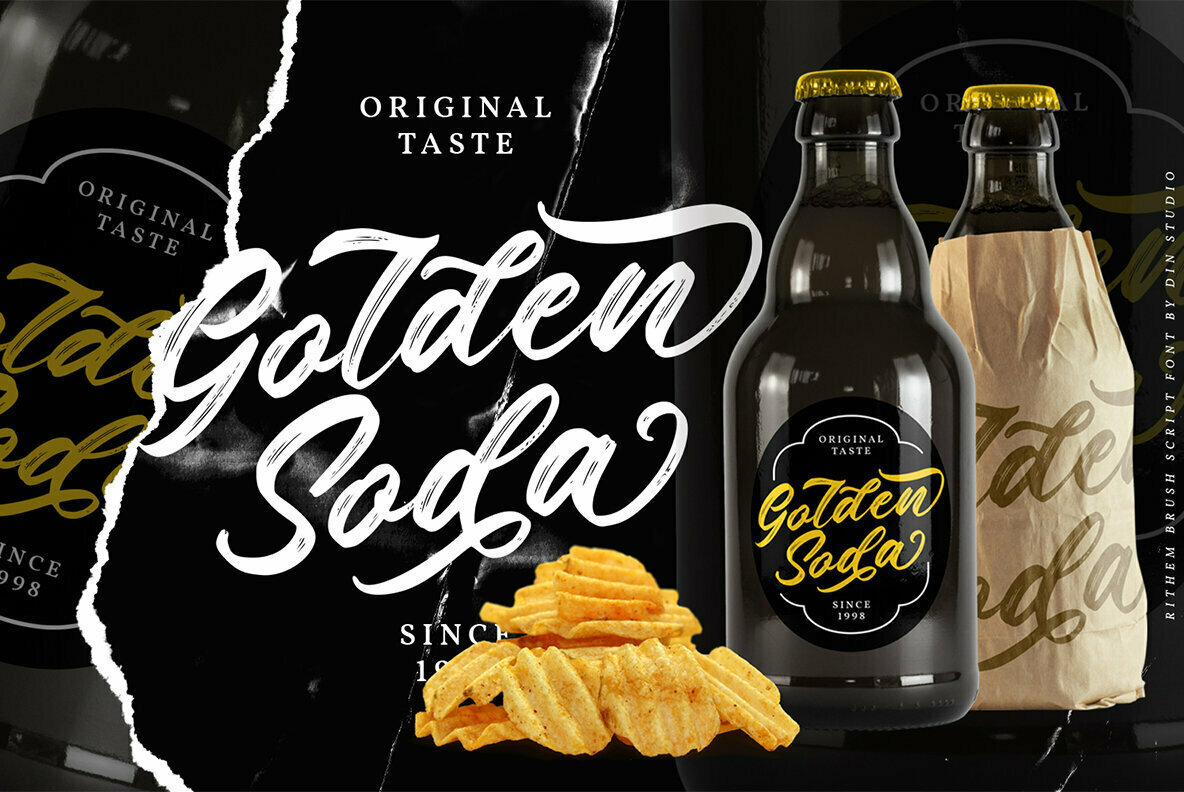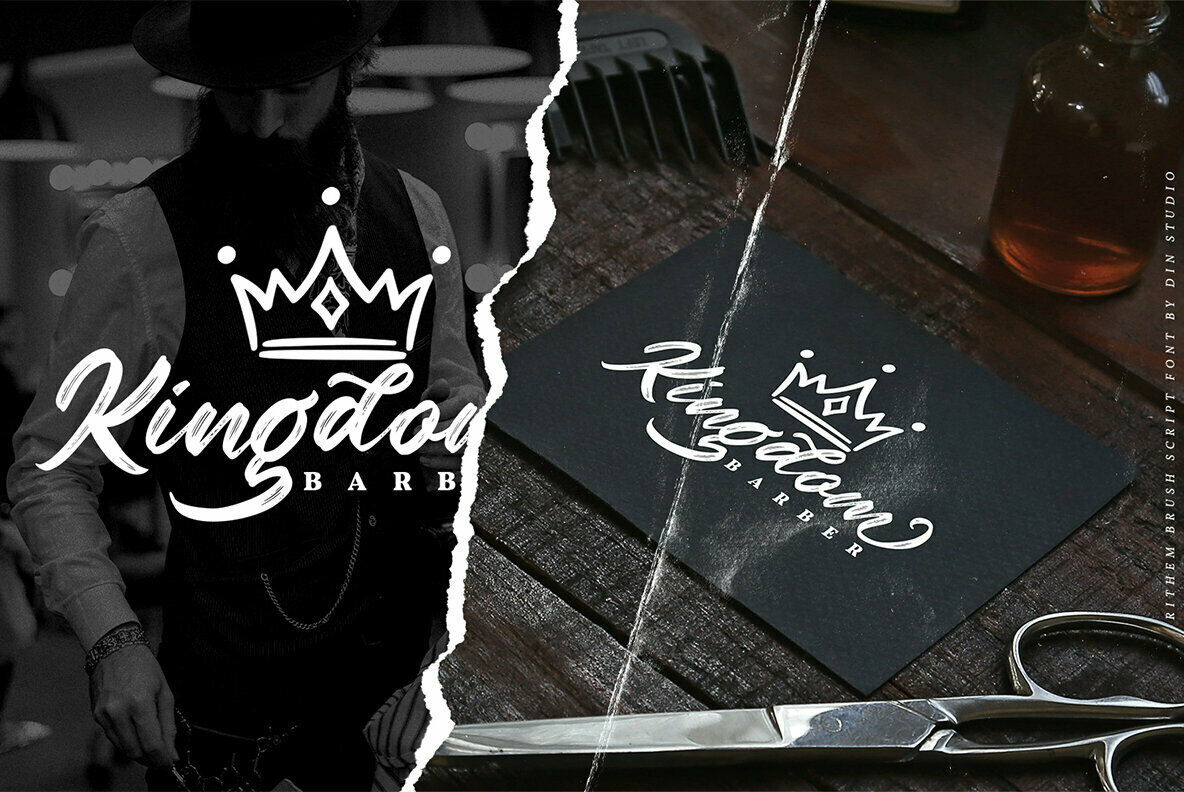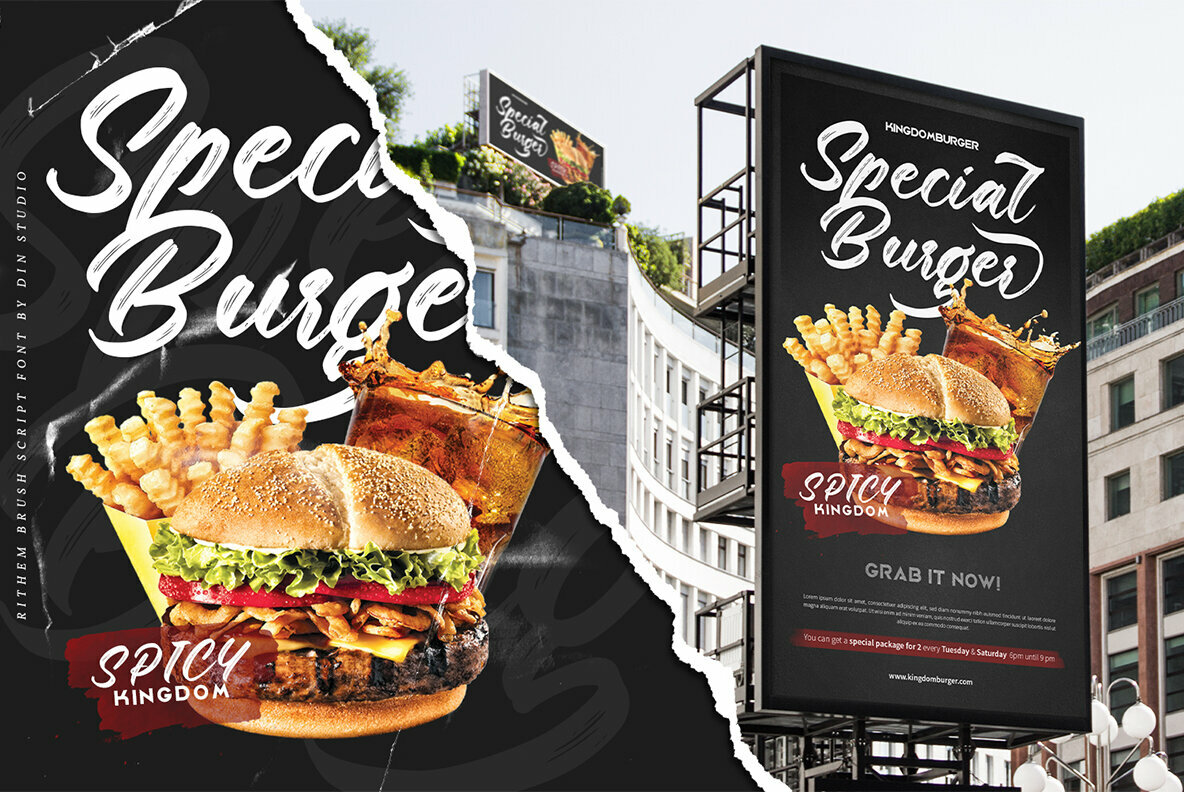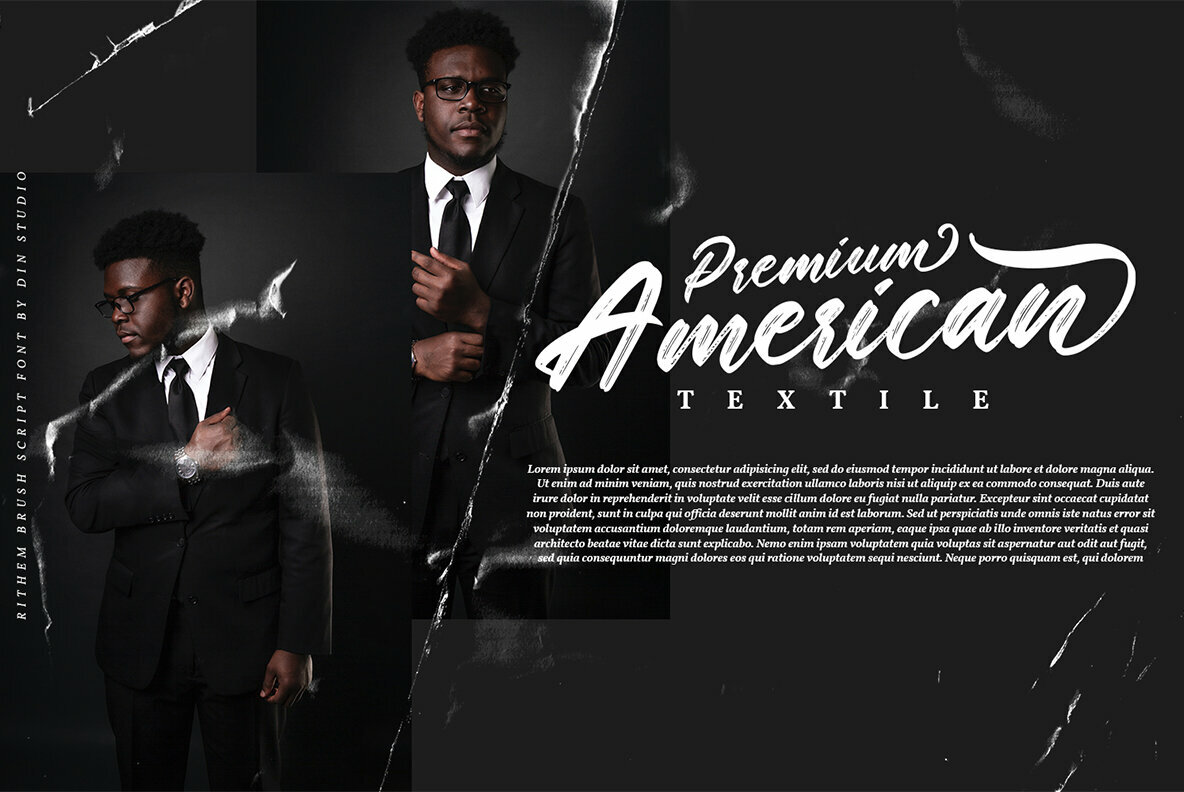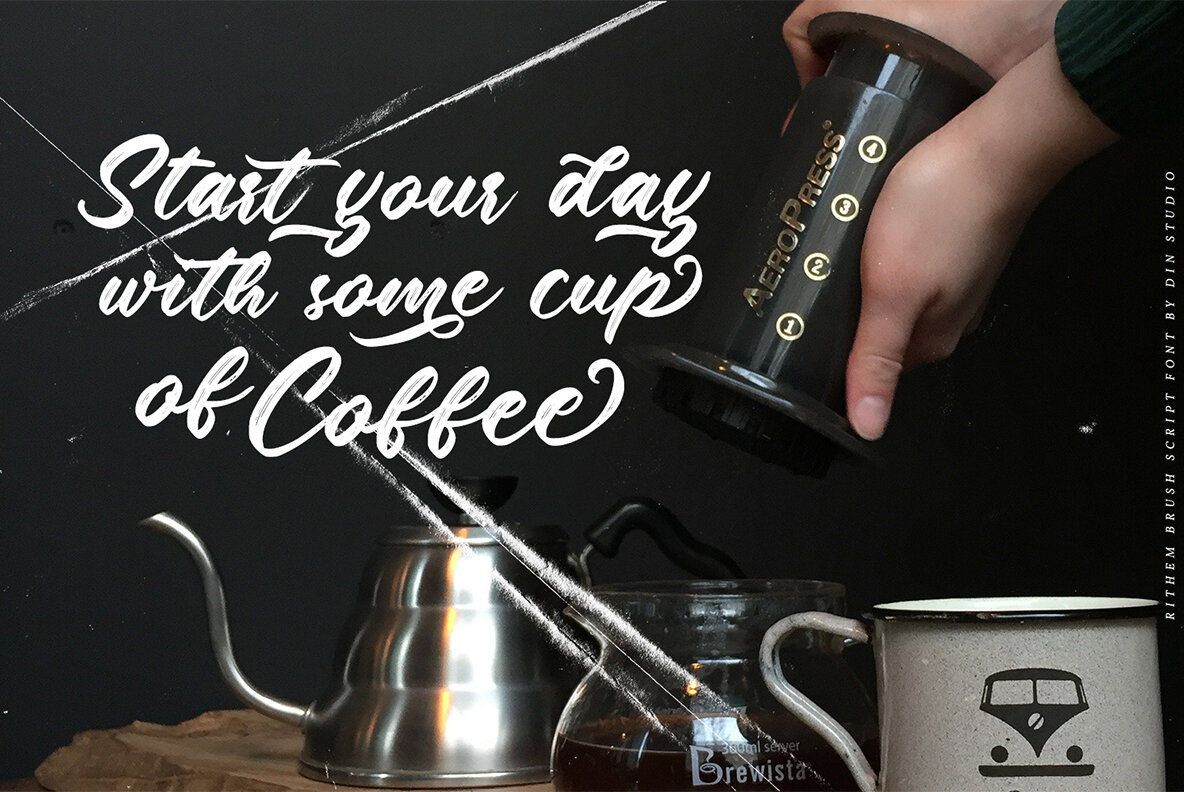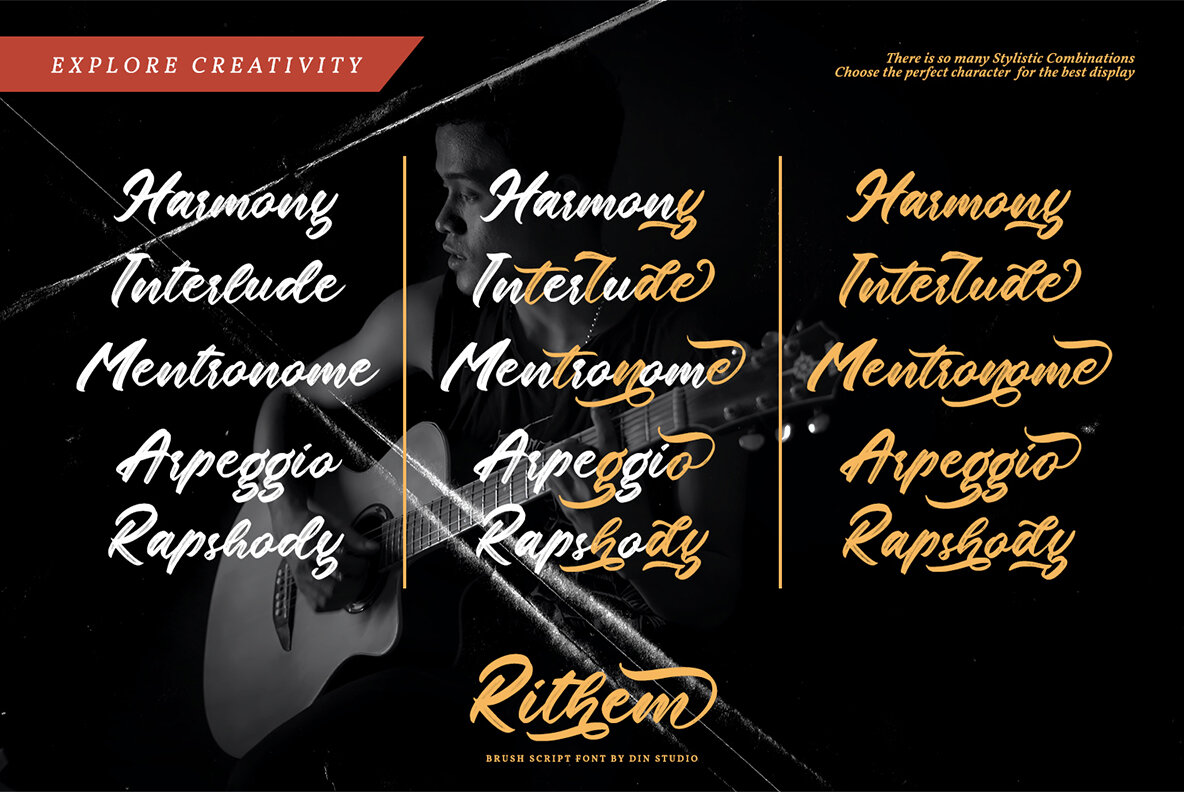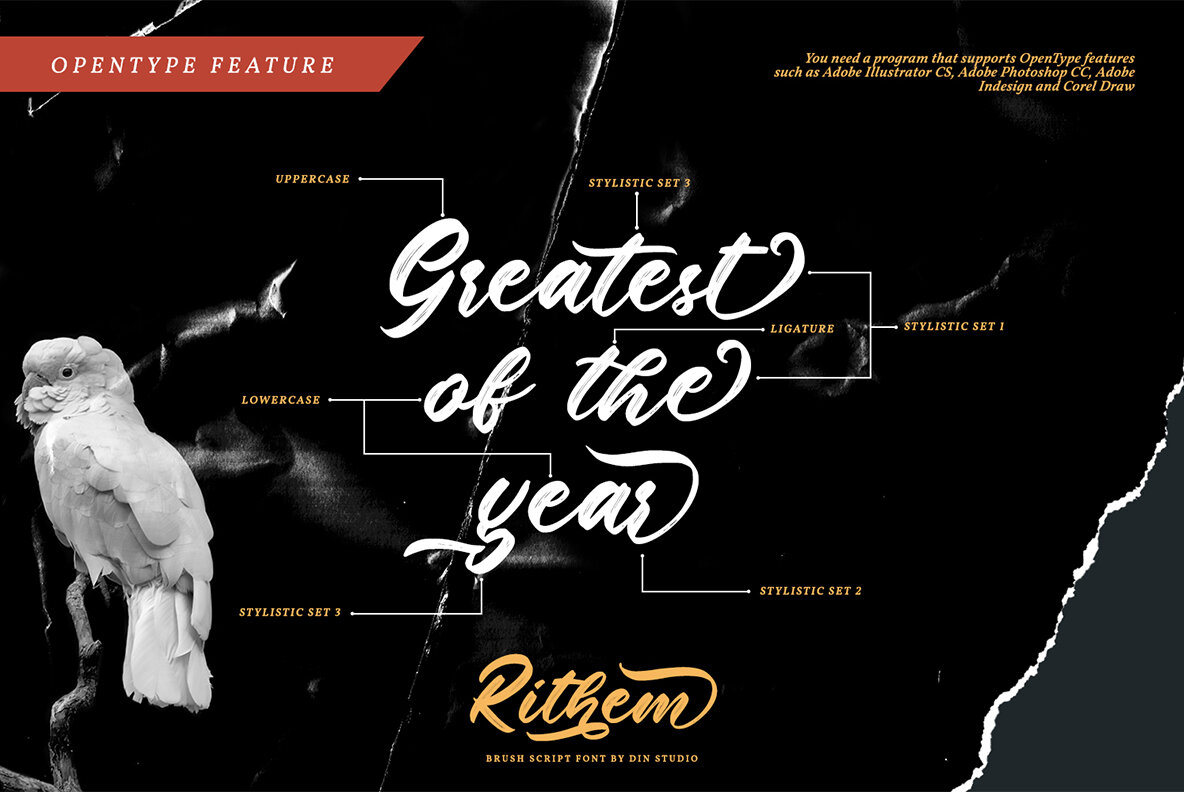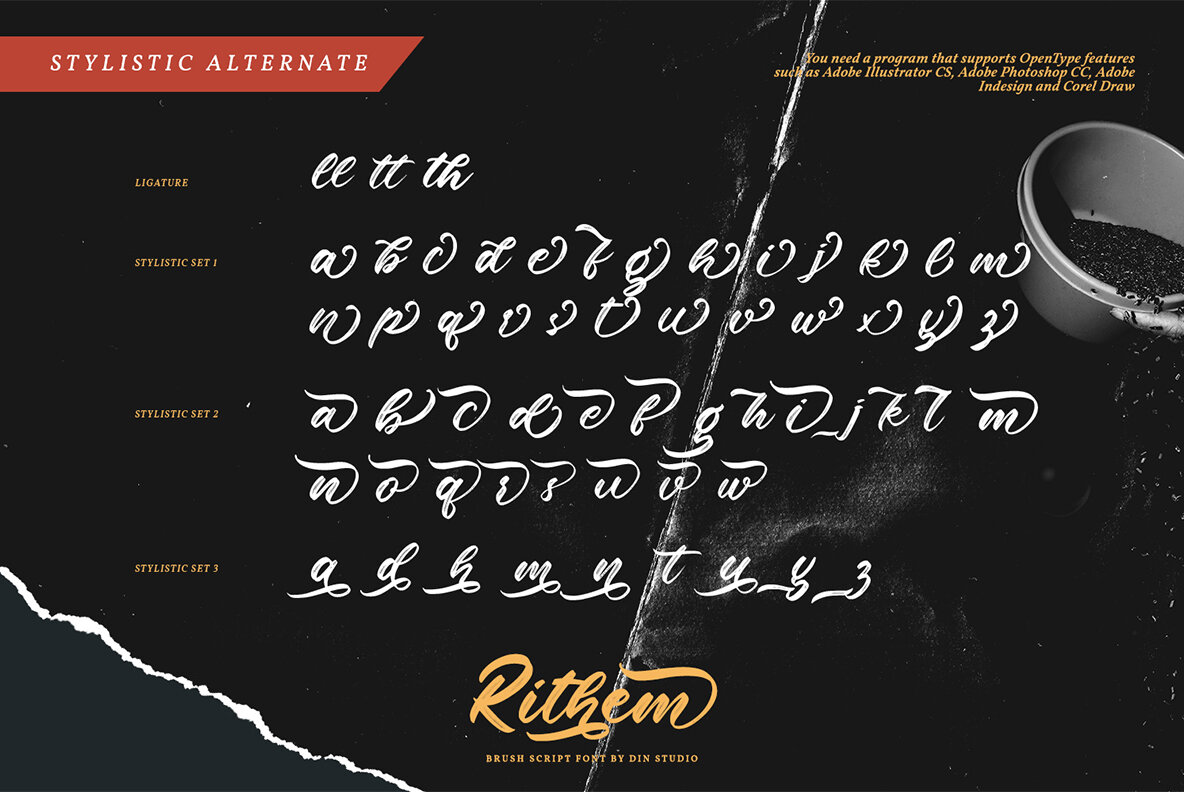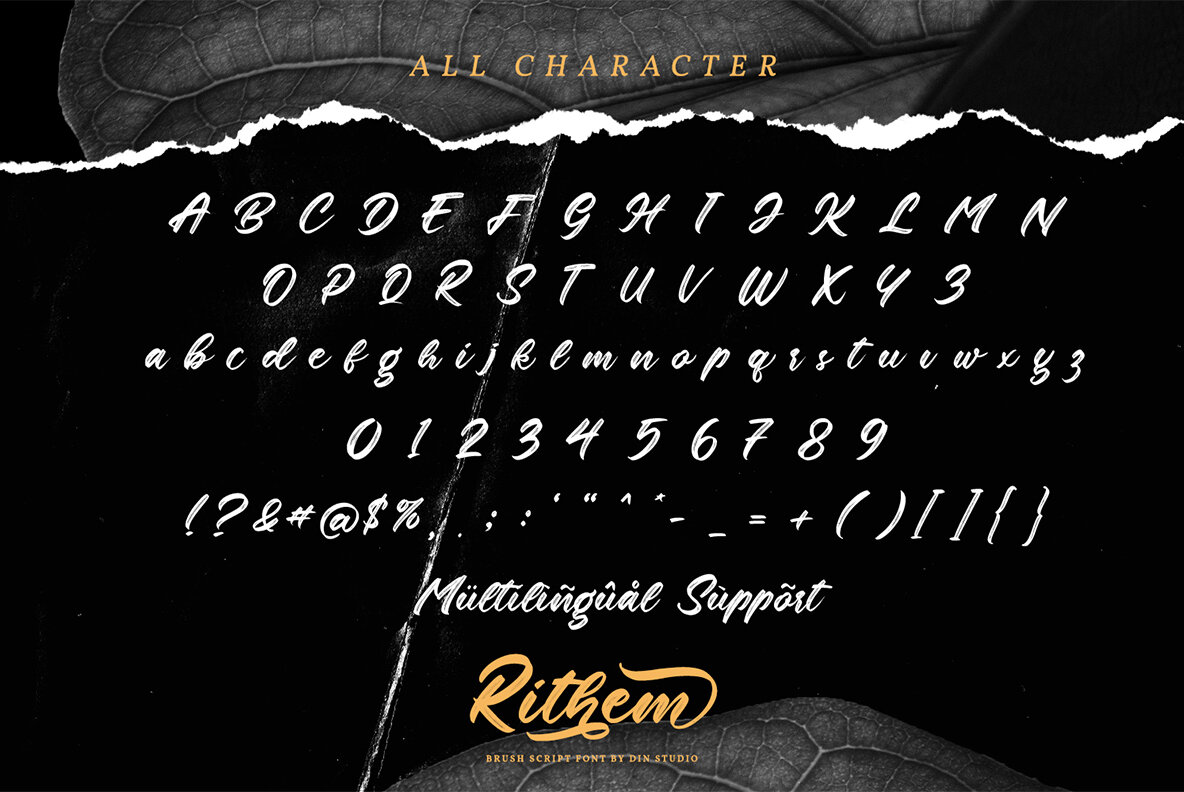
Rithem Font
Rithem
Rithem brings a sophisticated flair to your design projects with its elegant brush strokes seamlessly intertwined with calligraphy. Ideal for professional branding endeavors, Rithem excels in creating memorable logos and compelling quotes. Each letter is meticulously crafted, providing a distinctive and artistic impression.Rithem: Classy Brush Calligraphy